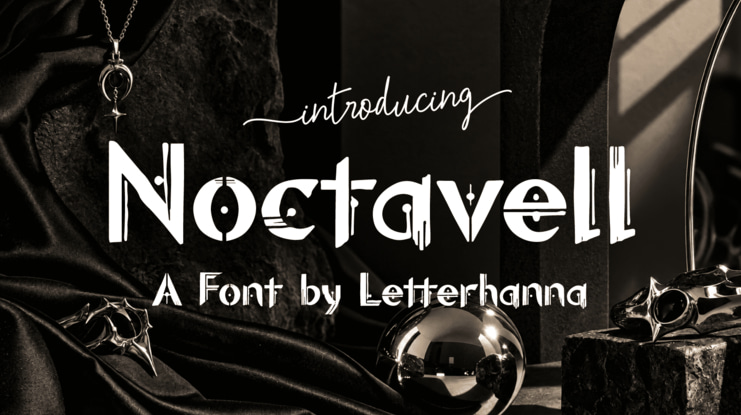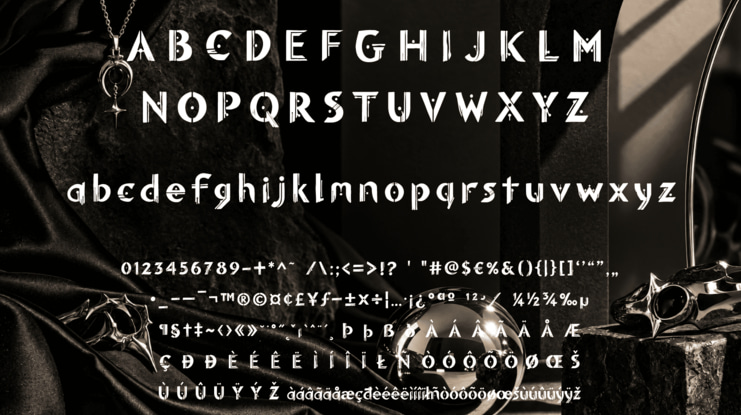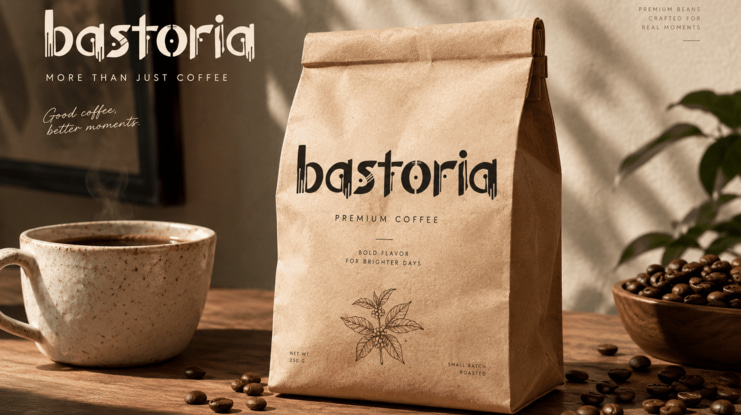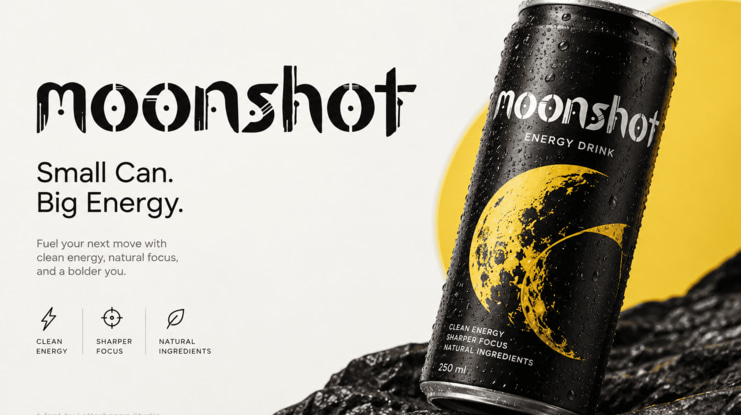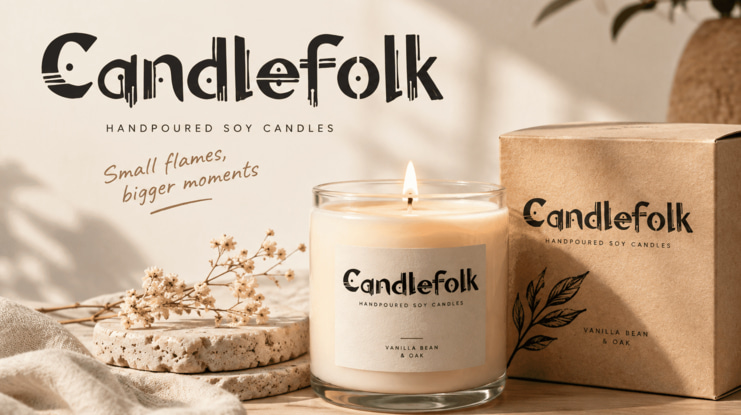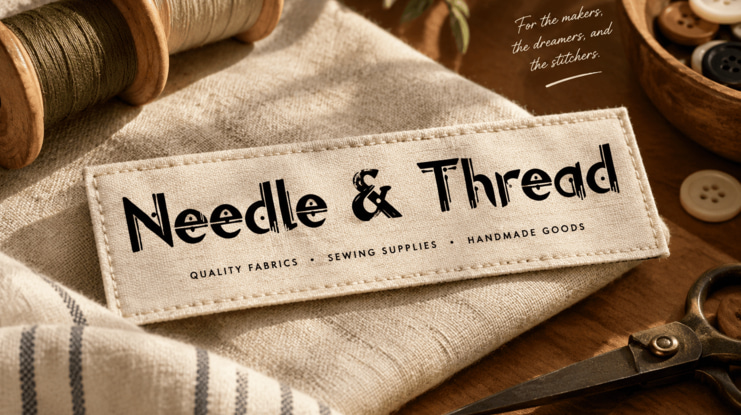
Some stories can't be told in a clean sans-serif. Noctavell is a gothic font designed for brands that live in the shadows — moody, textured, and impossible to ignore on a crowded shelf.
Not Just Another Display Font
Noctavell is a decorative font built from carved strokes, dripping ink details, and dotted accents that give every letter a handmade, almost ritualistic feel. It sits somewhere between a horror-movie title card and a high-end apothecary label — dark, but never cheap-looking, and never hard to read.
Real-World Use Cases
Coffee and candle packaging with a witchy, artisanal edge
Energy drink and beverage branding that wants to feel bold, not corporate
Sewing, craft, and handmade goods labels with vintage texture
Curiosity shops, tarot brands, and occult-inspired products
The Mood It Sets
Picture a crystal ball, black silk, and dim candlelight. That's the emotional register Noctavell operates in. It's the kind of alternative font that makes someone pause on a shelf, because the type itself looks like it's guarding a secret worth finding out.
Pairing It Right
Balance the drama with a simple sans-serif for body text
Let Noctavell carry the brand name, not the fine print
Use dark backgrounds and warm lighting in photography to match the mood
Built to Perform, Not Just Impress
A gothic font is only useful if it still reads well. Noctavell keeps its dramatic details legible at both large display sizes and smaller packaging text, so the mystery never costs you clarity — form and function, in the same glyph.
A Note on Versatility
What makes Noctavell stand out isn't just its dark mood — it's how many different product worlds it moves through without losing identity, from beverage cans to fabric labels.